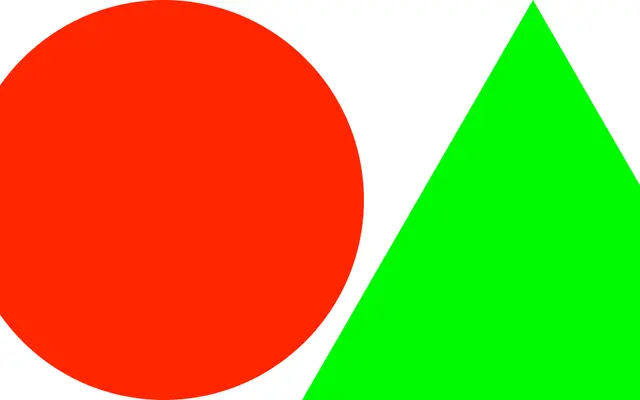
RGB specimen from A2-Type
A neutral geometric sans from A2-Type, engineered for consistency across digital products, interfaces and data-driven environments at scale.
Spanning ten weights from Thin to Heavy, each with a matching italic, RGB is built around typographic predictability rather than personality. A2-Type position it for high-frequency use across digital systems where type must hold up under constant repetition without drawing attention to itself. Variable fonts are available on request, and the licensing structure covers print, web, app, broadcast and logo use.
A neutral, system-oriented geometric sans with a wide weight range, designed for consistency across digital interfaces and data-heavy products rather than expressive or editorial use.